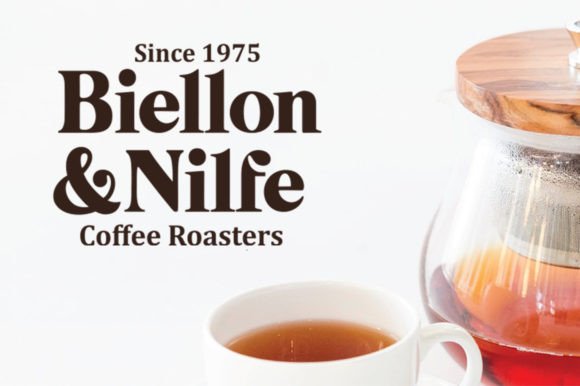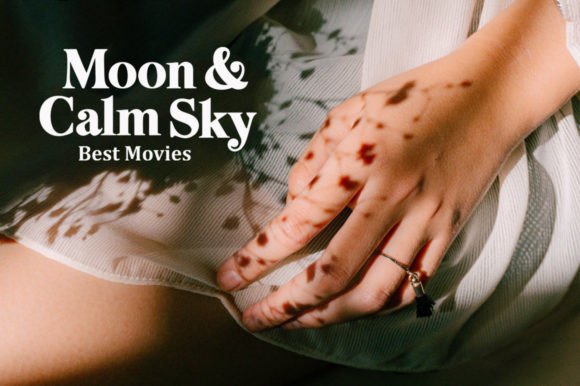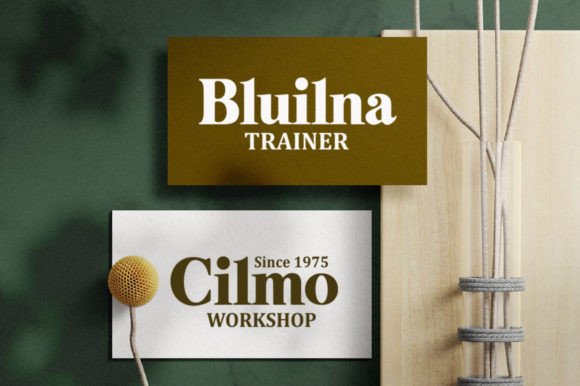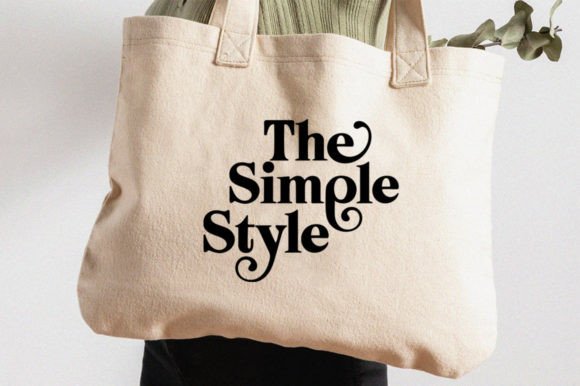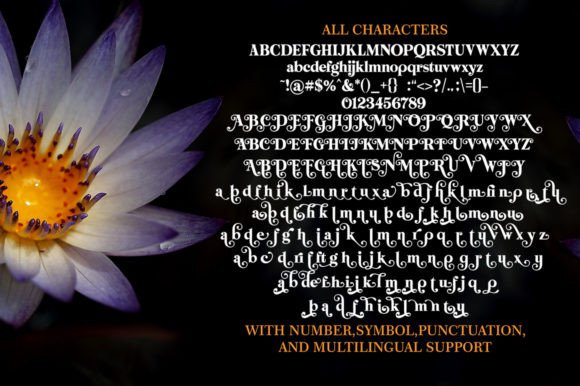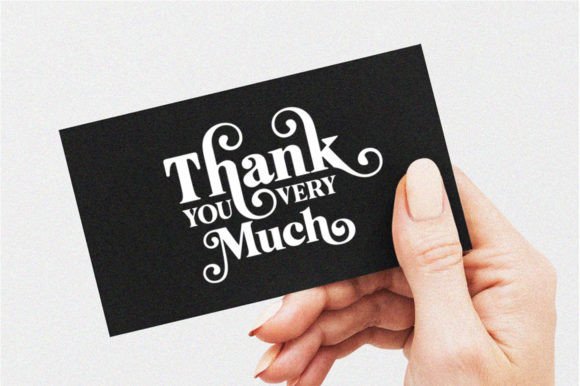
Bihola Font: Elevate Your Designs with a Touch of Modern Vintage Elegance
In the realm of typography, a font can make or break the visual appeal of a design. For designers and crafters seeking a unique blend of modernity and vintage charm, the Bihola Font stands out as an exceptional choice. This modern vintage serif font is meticulously crafted to bring a classy and luxurious feel to any project, making it perfect for those aiming to leave a lasting impression.
The Essence of Bihola Display
Bihola Display is not just a font; it’s a comprehensive typographic experience. Packaged in a modern and classy style, it offers access to OpenType features, which unlock a vast selection of alternate letters and ligatures. This feature allows designers to have unparalleled flexibility in customizing their text, enabling them to choose from variations of uppercase and lowercase letters to achieve a display that exudes luxury and elegance.
Unique, Playful, and Versatile
What sets Bihola apart is its unique blend of playfulness and versatility. This serif family is designed to beautify any design project with its alternates and ligatures. Whether you’re working on branding projects, logo designs, clothing branding, packaging, magazine headings, advertising, T-shirts, postcards, or any other creative endeavor, Bihola Font offers the perfect combination of sophistication and whimsy.
Applications of Bihola Font
The versatility of Bihola Font makes it an invaluable asset for a wide range of design applications:
- Branding Projects: Establish your brand’s identity with a distinctive and elegant font that sets you apart from the competition.
- Logo Design: Create memorable logos that convey your brand’s personality and values.
- Clothing Branding: Elevate your fashion brand with typography that speaks to luxury and style.
- Packaging: Make your product stand out on the shelves with packaging that boasts elegant and modern typography.
- Magazine Headings: Capture readers’ attention with headings that combine modernity with a vintage touch.
- Advertising: Convey your message in style with typography that commands attention and evokes emotion.
- T-shirts and Postcards: Add a personal touch to your merchandise and correspondence with a font that is both playful and sophisticated.
Why Choose Bihola Font?
Bihola Font is more than just a typeface; it’s a design solution that offers:
- Elegance and Sophistication: Bring a touch of luxury to your designs with its modern vintage feel.
- Customization: Utilize OpenType features for a wide range of alternates and ligatures, allowing for truly unique designs.
- Versatility: Suitable for a myriad of design projects, ensuring that you can maintain consistency across different platforms and materials.
- Playfulness: Adds a whimsical touch that can make your designs more engaging and memorable.
In the quest for the perfect font that combines modernity with vintage elegance, Bihola Font emerges as a top contender. Its classy style, coupled with the extensive customization options provided by its OpenType features, makes it an excellent choice for designers and crafters looking to elevate their projects. Whether you’re aiming to create a lasting brand impression, craft a memorable logo, or simply add a touch of sophistication to your designs, Bihola Font is poised to exceed your expectations.
Embrace the world of Bihola Font and discover a typographic solution that not only meets your design needs but also opens up new avenues for creativity and expression.